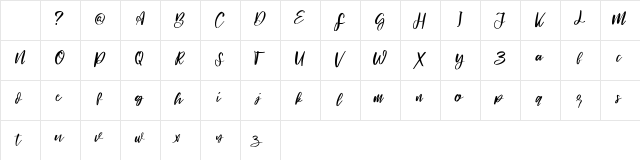
Complete Signature hawk Regular glyph index. Displaying only characters natively supported by Signature hawk Regular font.
Signature hawk is a composed and adaptable typeface that performs quietly and consistently across a wide range of design contexts.